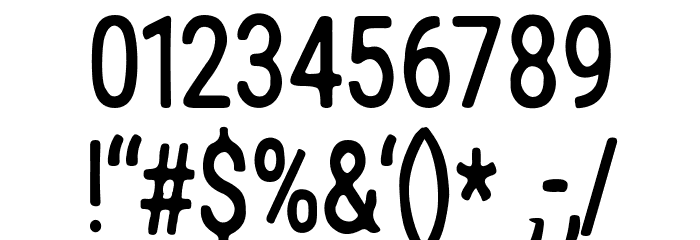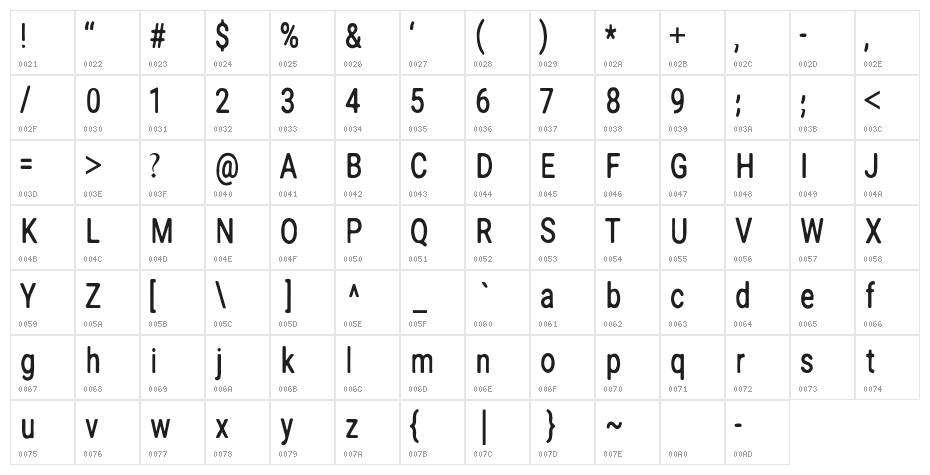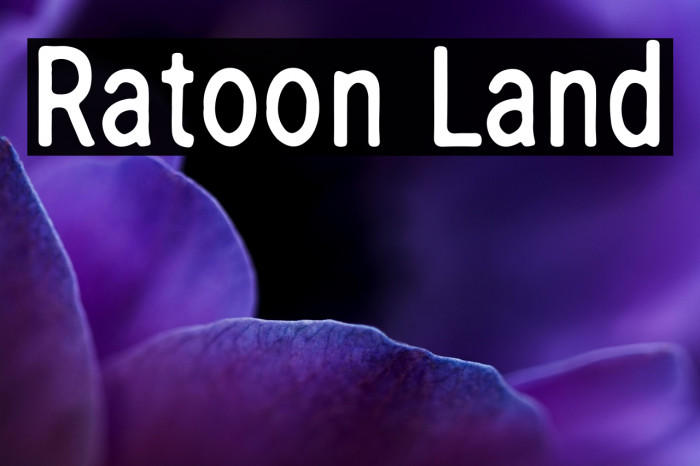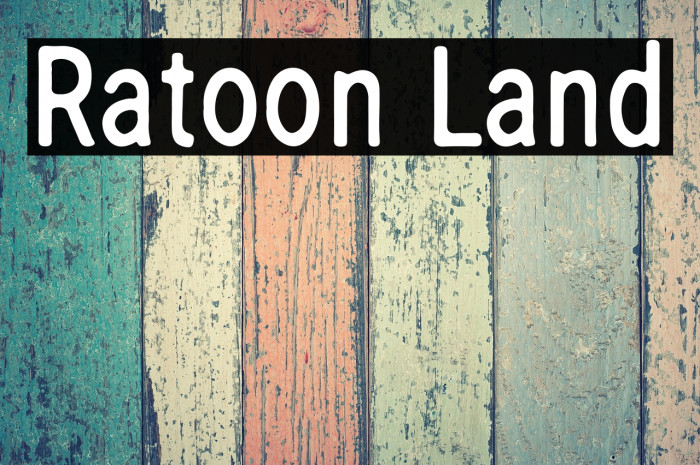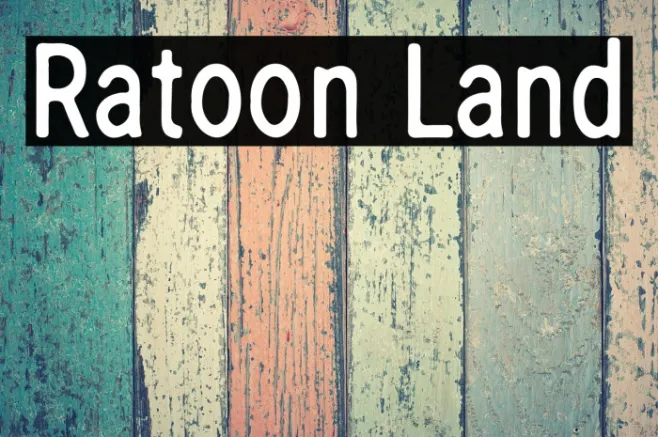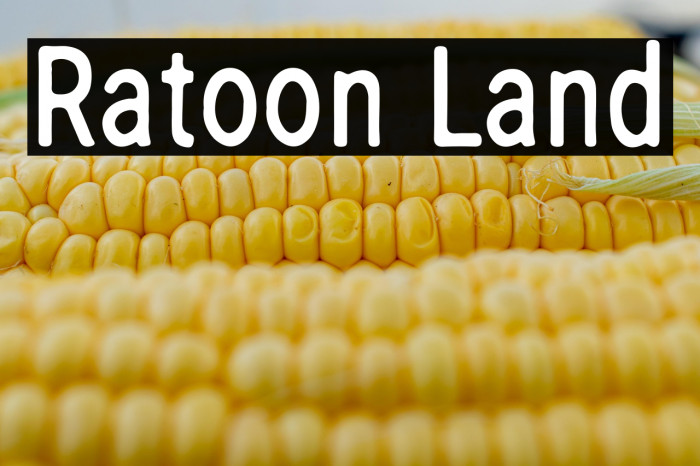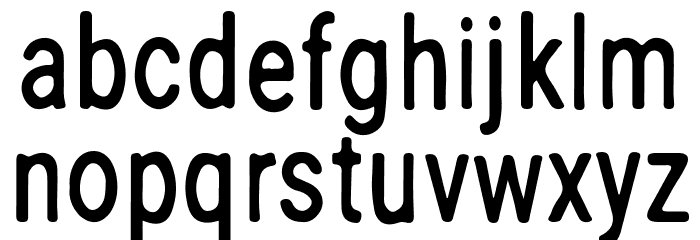
Ratoon Land Font
Ratoon Land Description
This font features a playful and rounded design, characterized by its smooth curves and friendly appearance. The letters are evenly spaced, providing a clean and approachable look. The uppercase and lowercase letters maintain a consistent style, with rounded edges that give a soft and inviting feel. The numerals are clear and easy to read, matching the overall aesthetic of the font. Special characters are well-integrated, maintaining the same rounded and approachable design. This font is versatile, suitable for a variety of applications where a friendly and informal tone is desired.
| Proposed Projects | Ideal for children's books, playful branding, casual invitations, and friendly web design. |